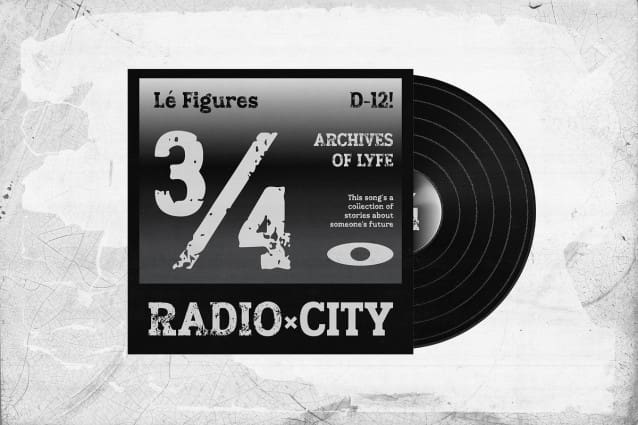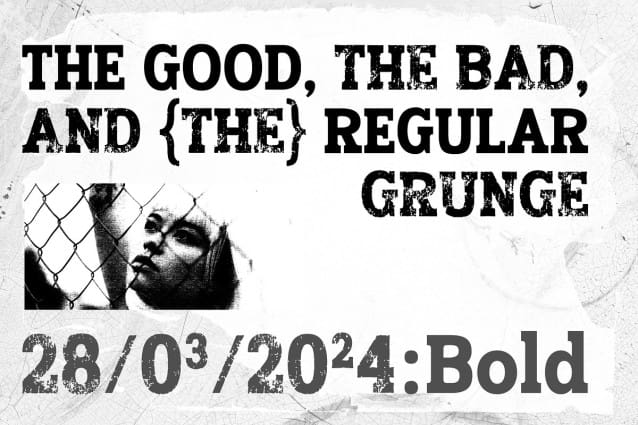
Trosher Font
Trosher Font is a unique typeface designed to mimic the texture and appearance of soil. It’s crafted with intricate details that resemble the earthy elements found in soil, creating a natural and organic feel in typography. This font adds a rustic and earth-inspired touch to design projects, making it ideal for environmentally themed materials, gardening publications, or anything related to nature and sustainability.